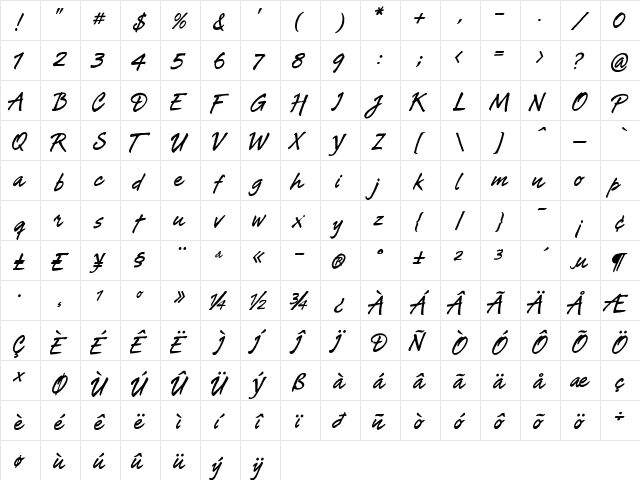
Tiza Negra Regular Font Preview
Tiza Negra Regular
Tiza Negra Regular Font Details
Design Context for Tiza Negra Typeface
Tiza Negra is a composed and adaptable typeface that performs quietly and consistently across a wide range of design contexts.